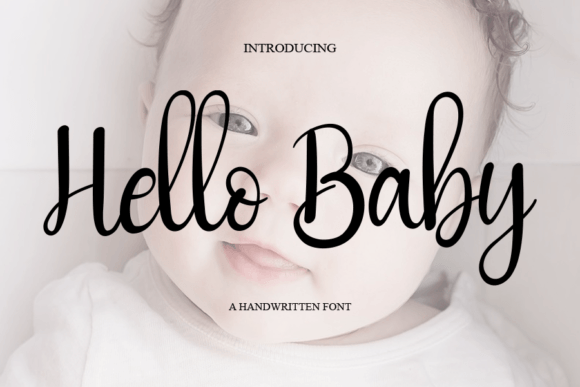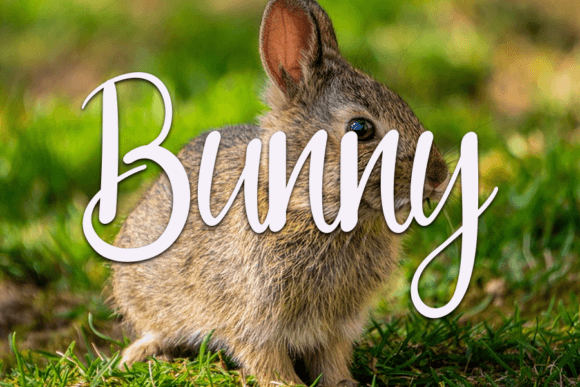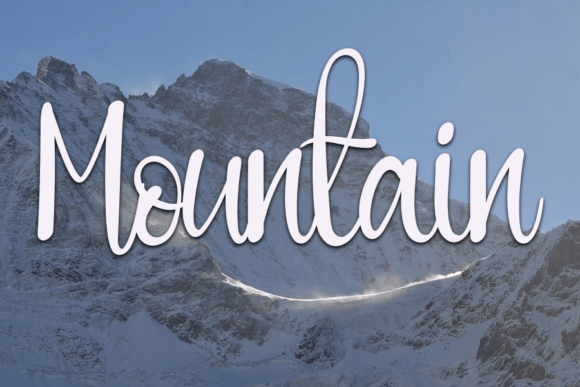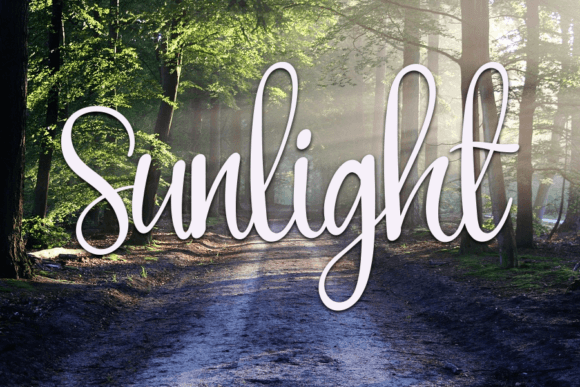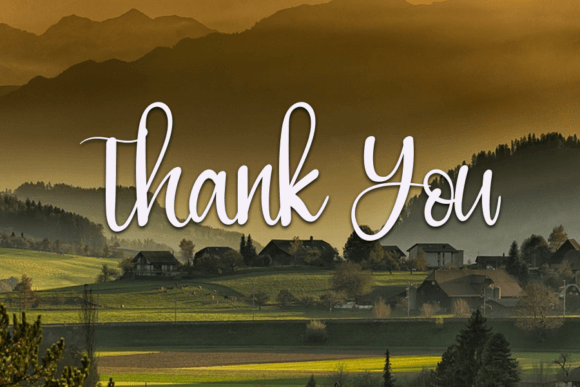
Hello Baby Font
About Hello BabyFont
Hello BabyFont is a fun handwritten script that combines cheerful energy with casual elegance. With smooth strokes and a playful appearance, this typeface brings charm to both personal and professional projects. Because of its versatile style, Hello Baby Font is suitable for crafts, invitations, logos, posters, and digital creative work.
A Playful Handwritten Typeface with Personality
Handwrittenfonts add warmth and authenticity, and Hello Baby Font captures these qualities with ease. Its natural flow and casual design make it approachable while still maintaining readability. Moreover, its friendly strokes adapt well to different themes, from fun invitations to stylish digital branding. As a result, it is a dependable option for designers who want flexibility and charm.
Perfect Typeface for Crafts and Greeting Cards
If you enjoy creating greeting cards or working on crafts, Hello Baby Font is a wonderful companion. For example, it can turn a simple thank-you card into a heartfelt keepsake. In addition, it works beautifully for wedding invitations, birthday notes, and seasonal greetings. Because of its playful details, every project feels unique and engaging.
A Script Typeface for Logos and Branding
Businesses and creative professionals can also benefit from Hello Baby Font. Logos, packaging, and product labels look approachable and stylish when designed with this handwritten script. Furthermore, on social media, it enhances posts, stories, and promotional banners with a lively touch. When paired with minimalist sans serif fonts, it creates balance between friendliness and professionalism.
Another strength of Hello BabyFont is its adaptability across mediums. In print, it enhances posters, brochures, merchandise, and stationery. Digitally, it works well for websites, blogs, and presentations. Since it remains legible at both small and large sizes, it is practical for various creative needs, from headlines to captions.